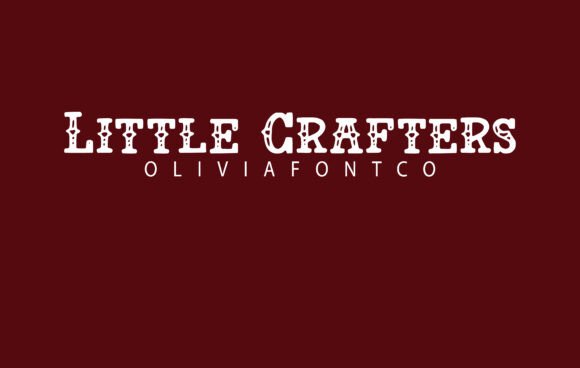
Little Crafters: A Timeless Font for Modern Design
Design Tips for Branding:
- Use as primary type in logos for a bold, modern look.
- Pair with minimalist sans-serif fonts for secondary text to maintain clarity.
- Ensure color palette choices enhance the font's warmth and readability.
Best Practices for Digital Use:
- Test font size and spacing across different screen resolutions for optimal UX.
- Limit use to one or two instances per layout to avoid overwhelming the viewer.
- Incorporate into call-to-action buttons for added emphasis and style.
Creating a Professional Presentation
Ultimately, Little Crafters is more than just a font—it’s a design tool that enhances creativity and communication. By integrating it thoughtfully into your workflow, you can craft compelling visuals that resonate with your audience and reflect your brand’s personality with authenticity and finesse.